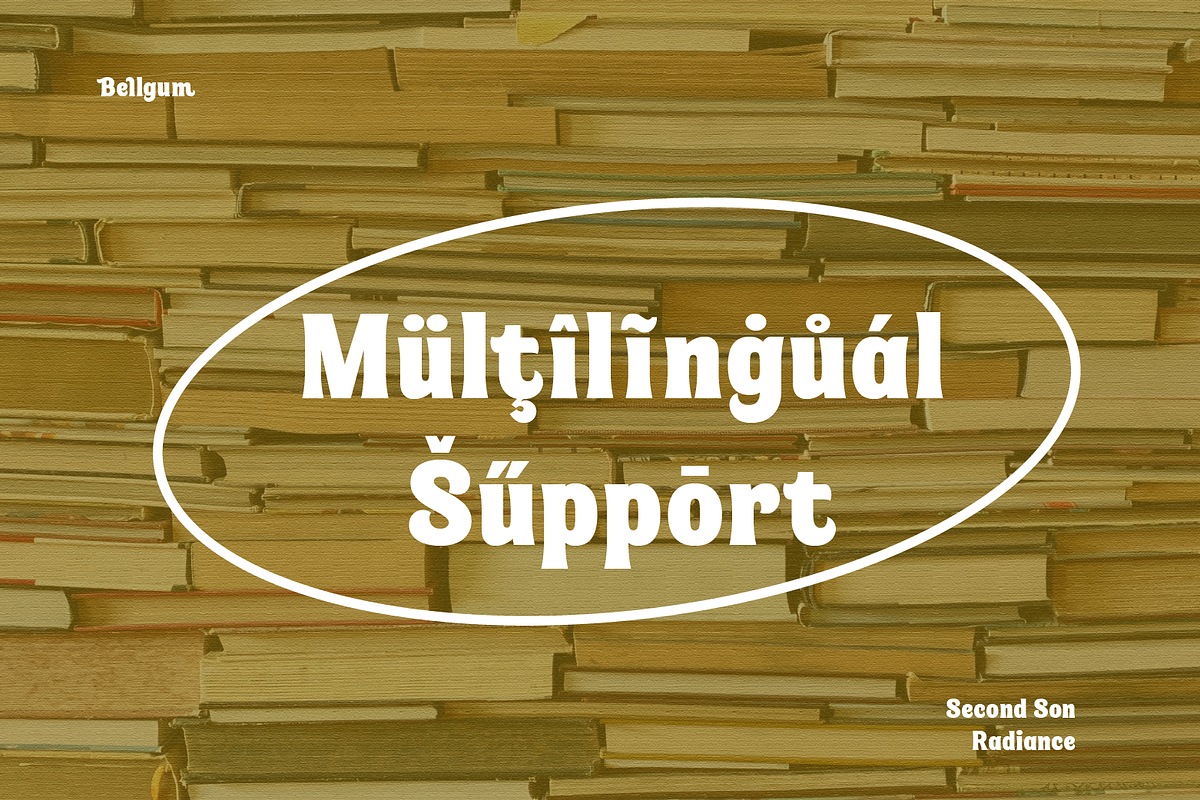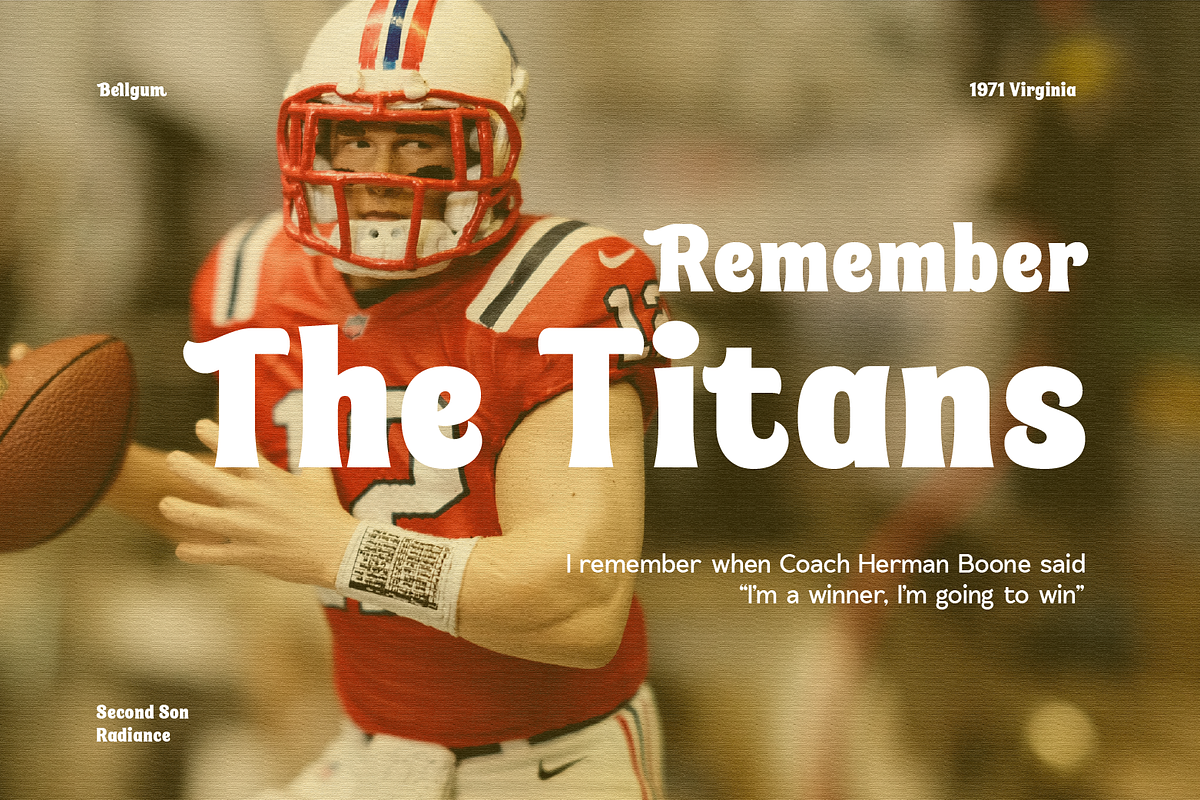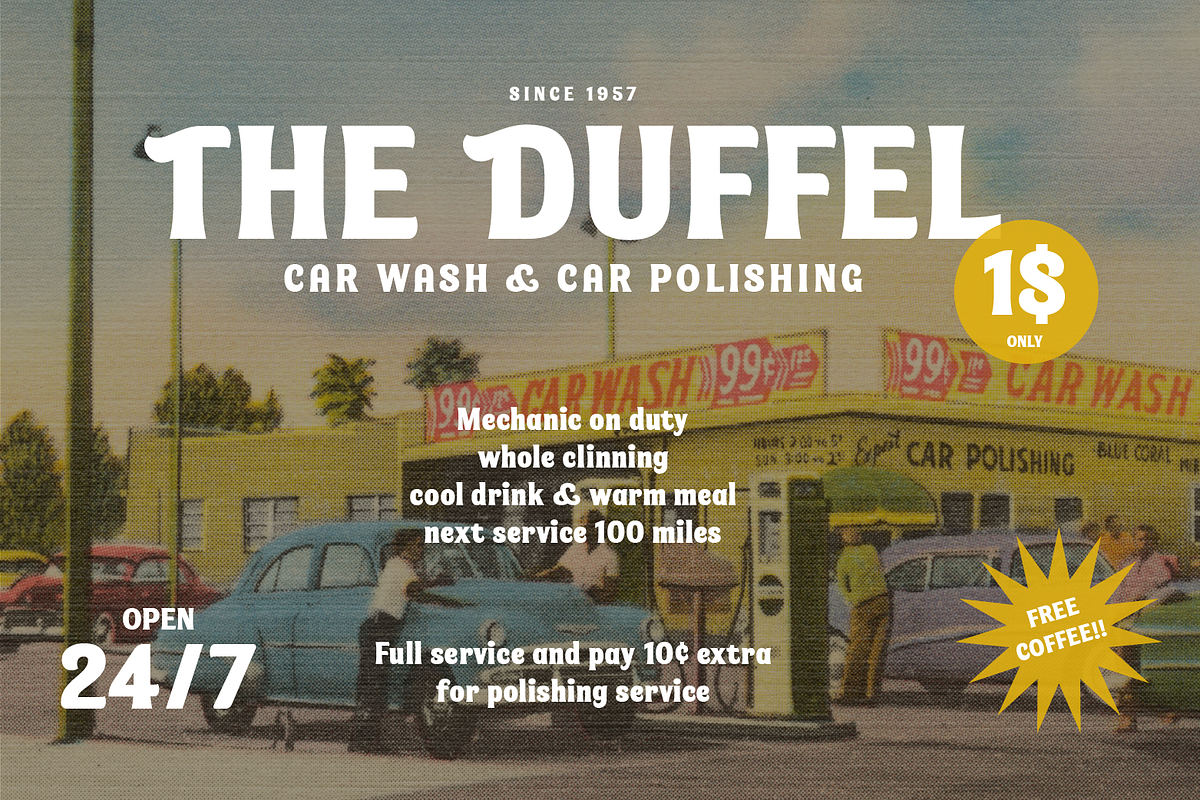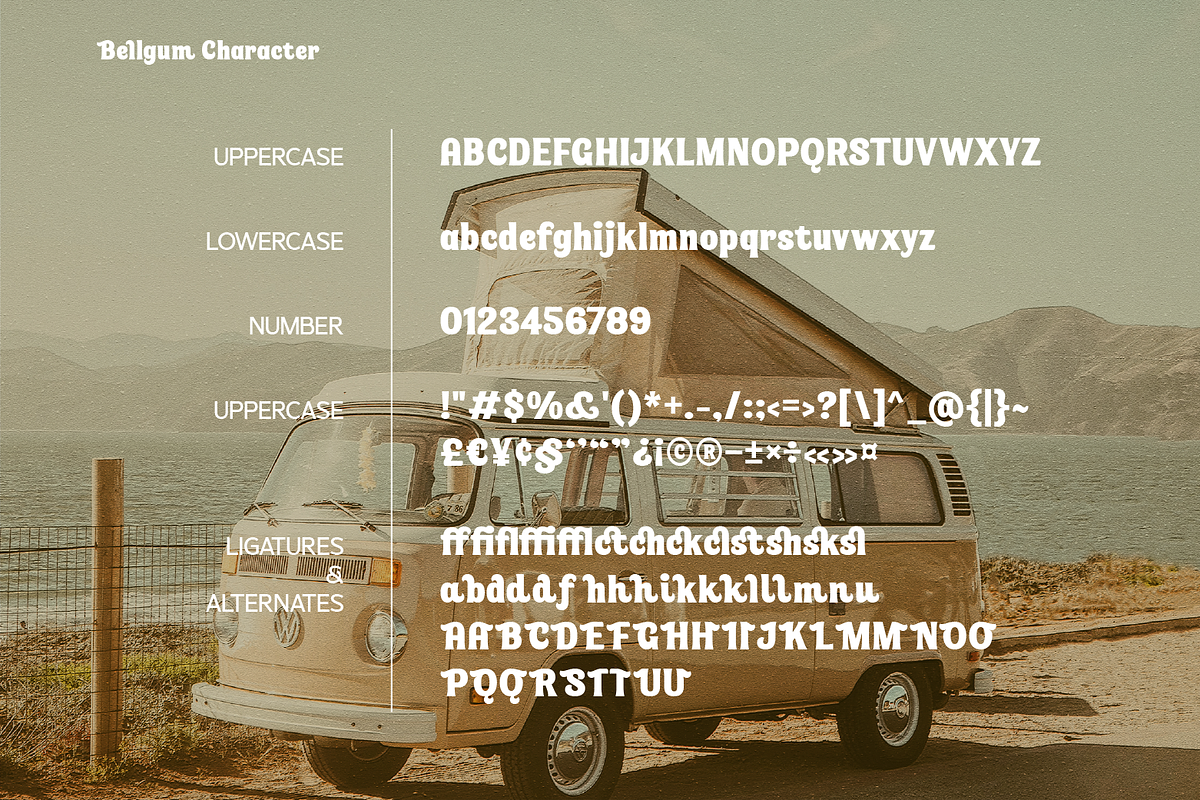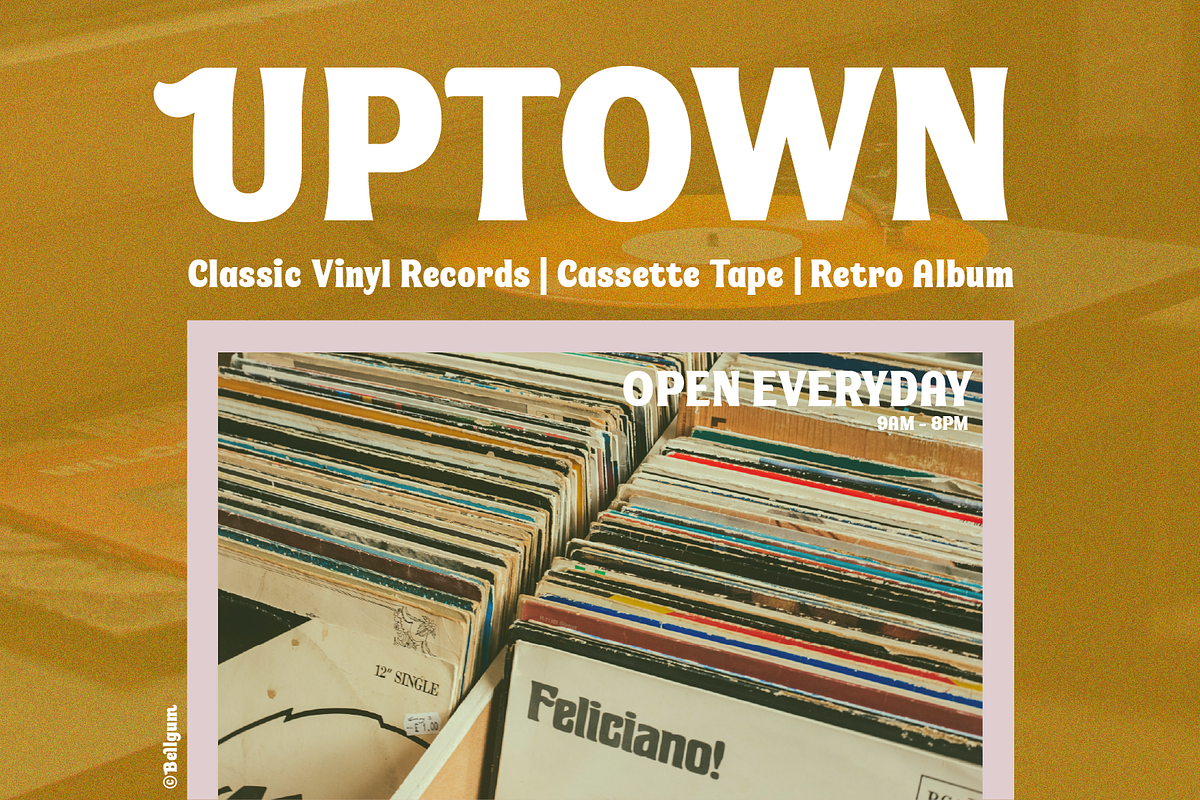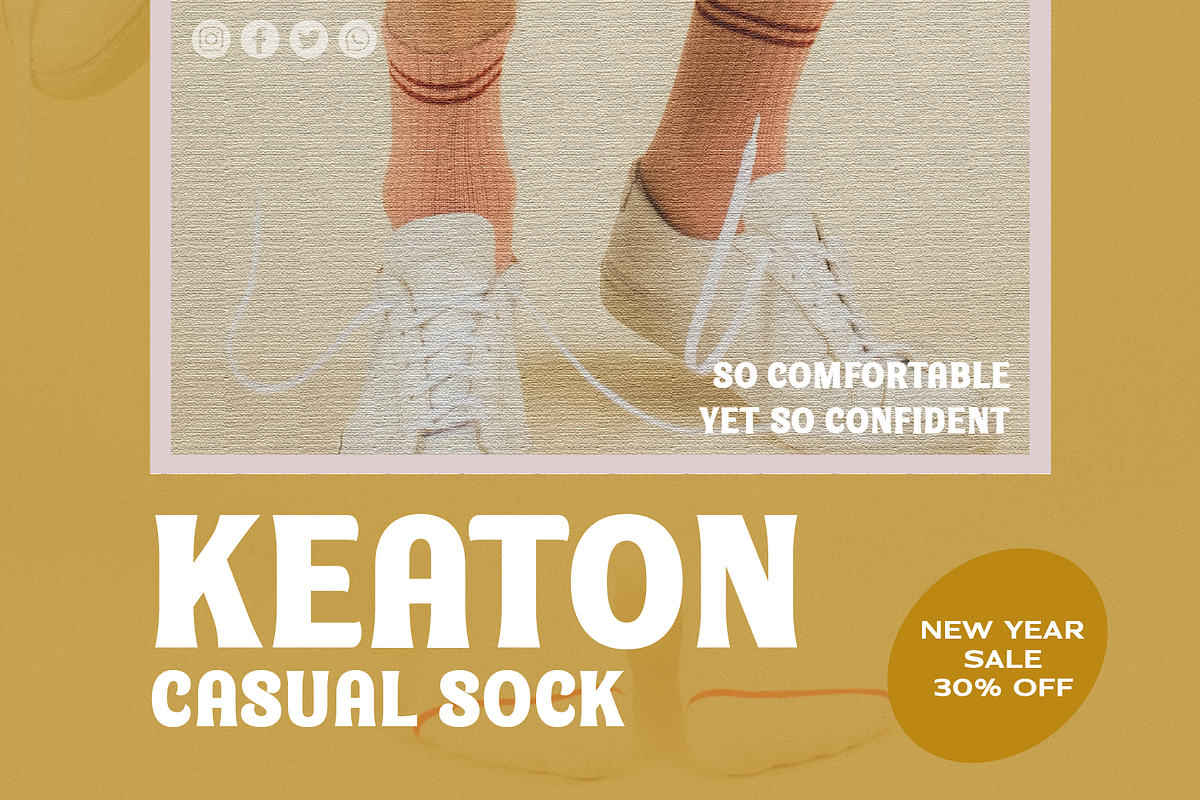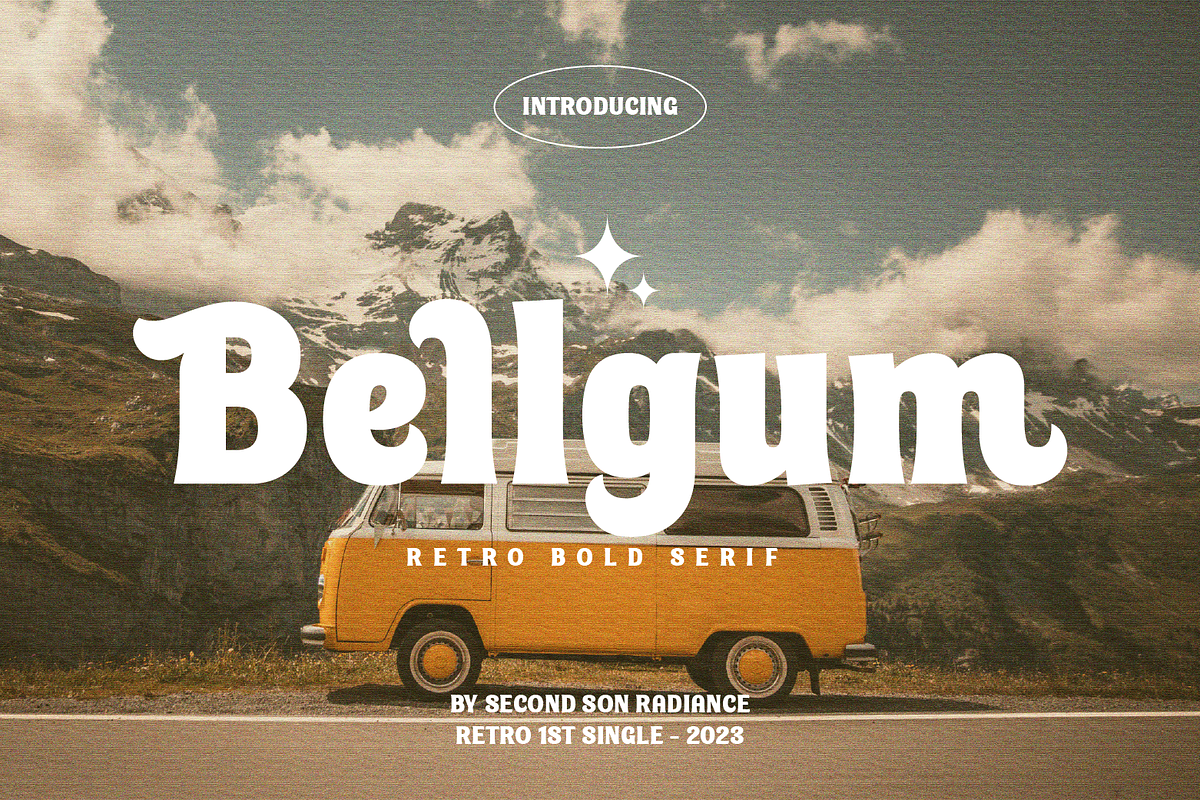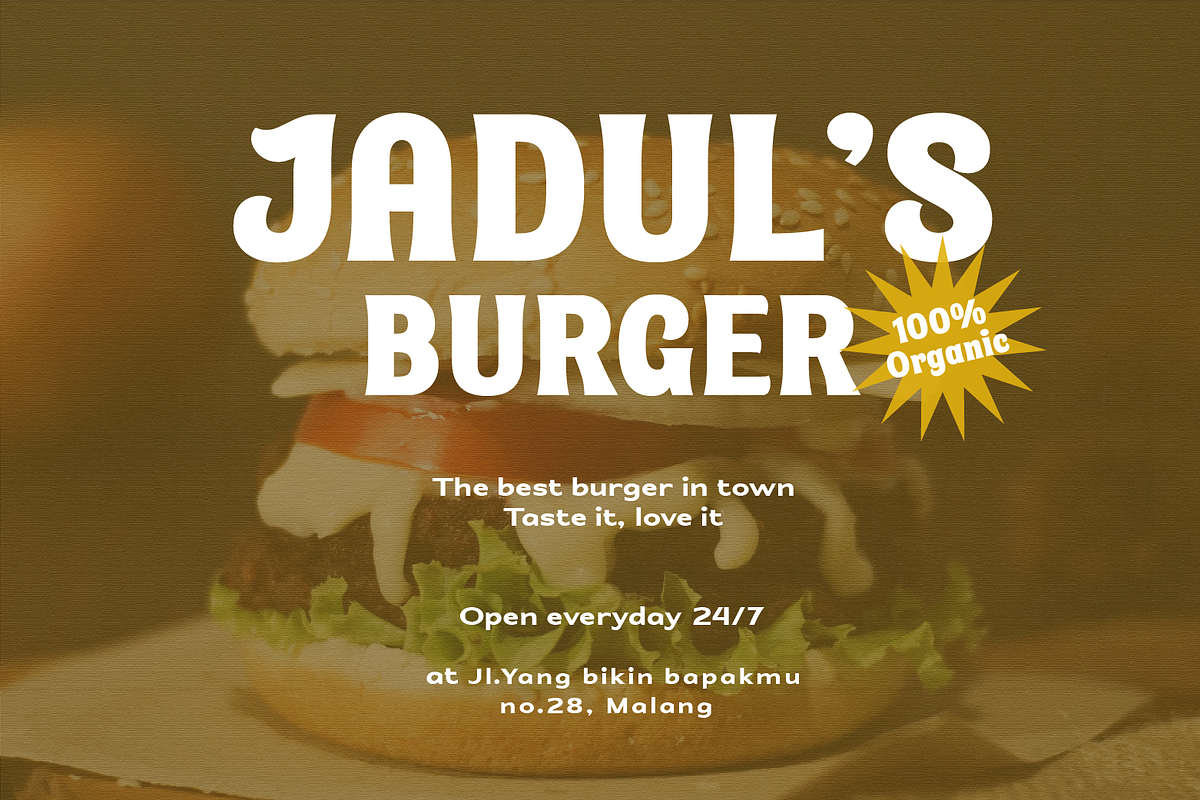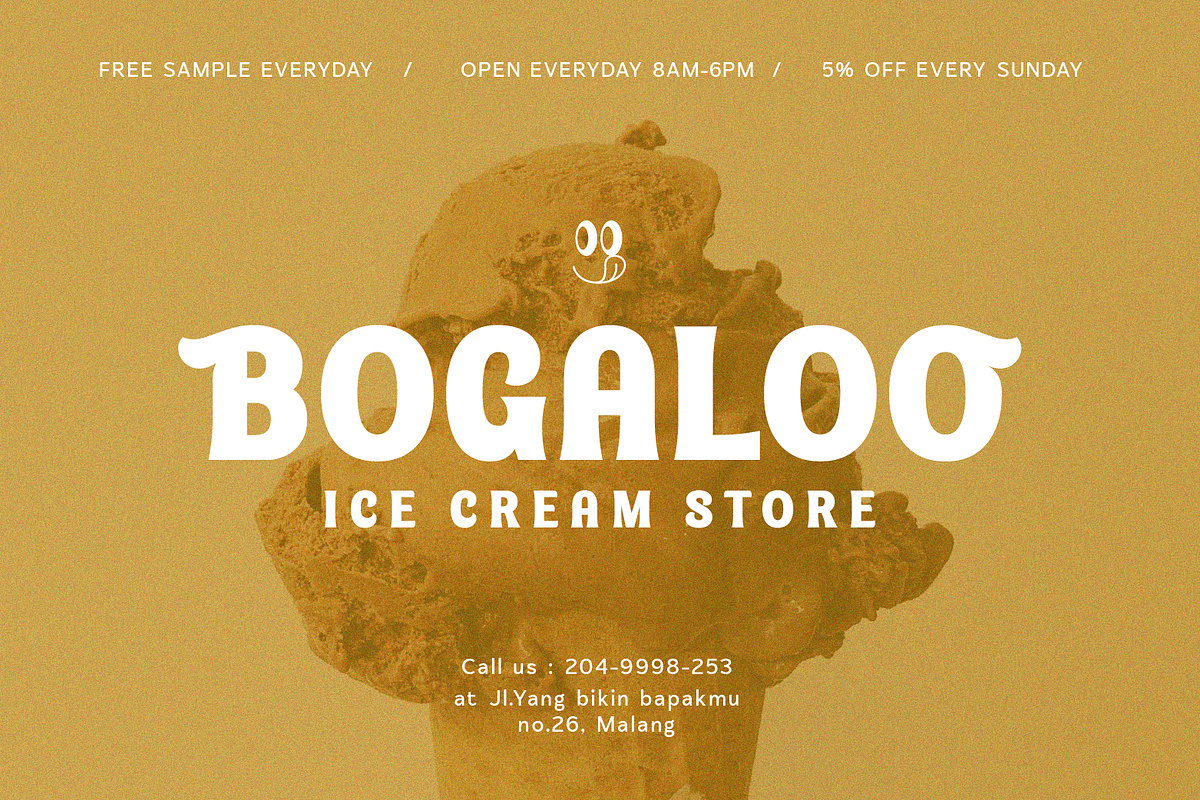
SS Bellgum - Retro Bold Serif
Bellgum - Bold Vintage Serif - Retro 80s Font
Bellgum is a bold vintage display font with a touch of retro and 80s vibes. It is perfect for your upcoming projects such as retro logo and branding, classy poster designs, 80’s magazines, FnB brands, art gallery branding, boutique branding, stationery design, blog design, modern advertising designs, card invitations, art quotes, home decor, book/cover titles, special events, and more.